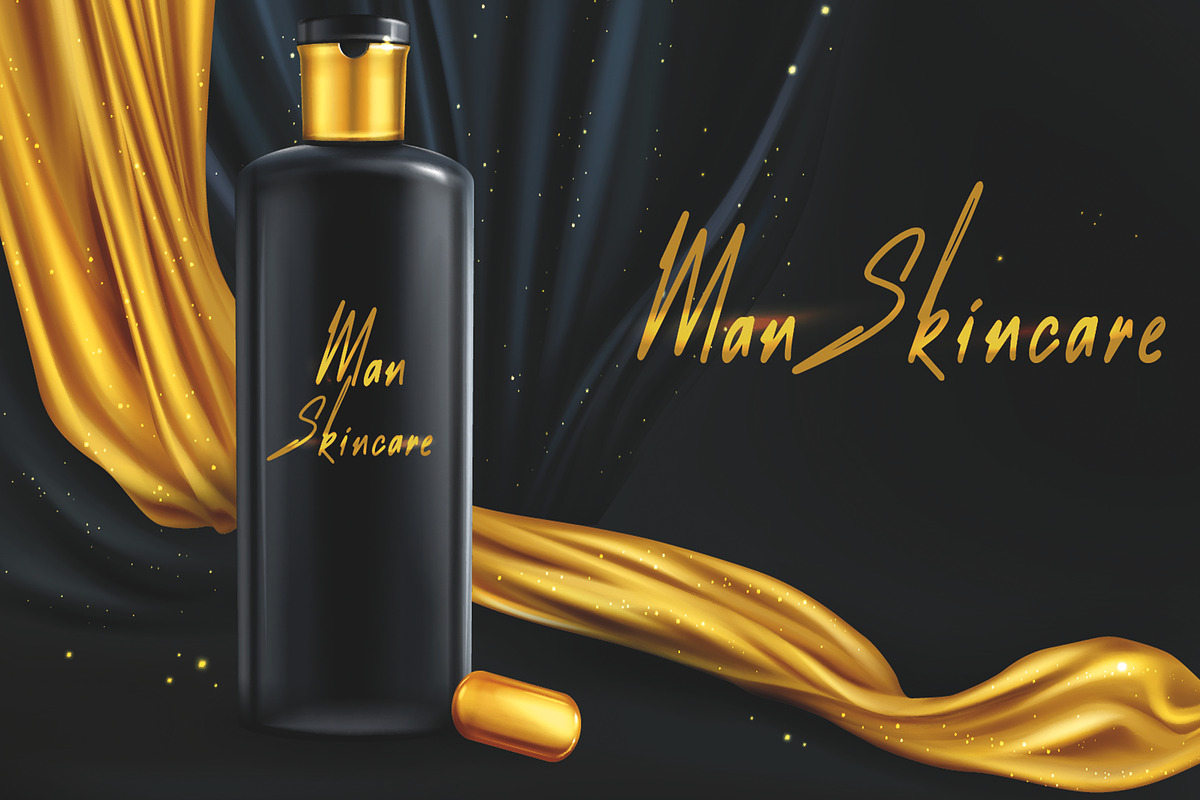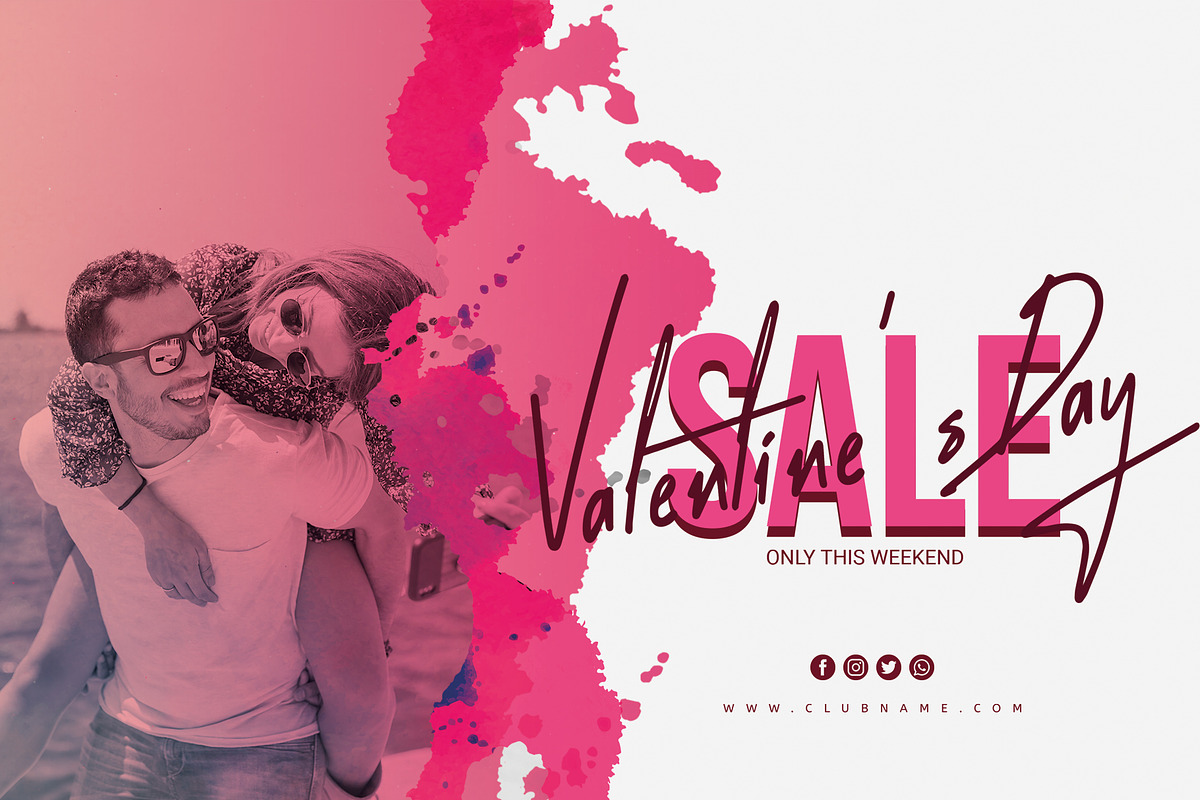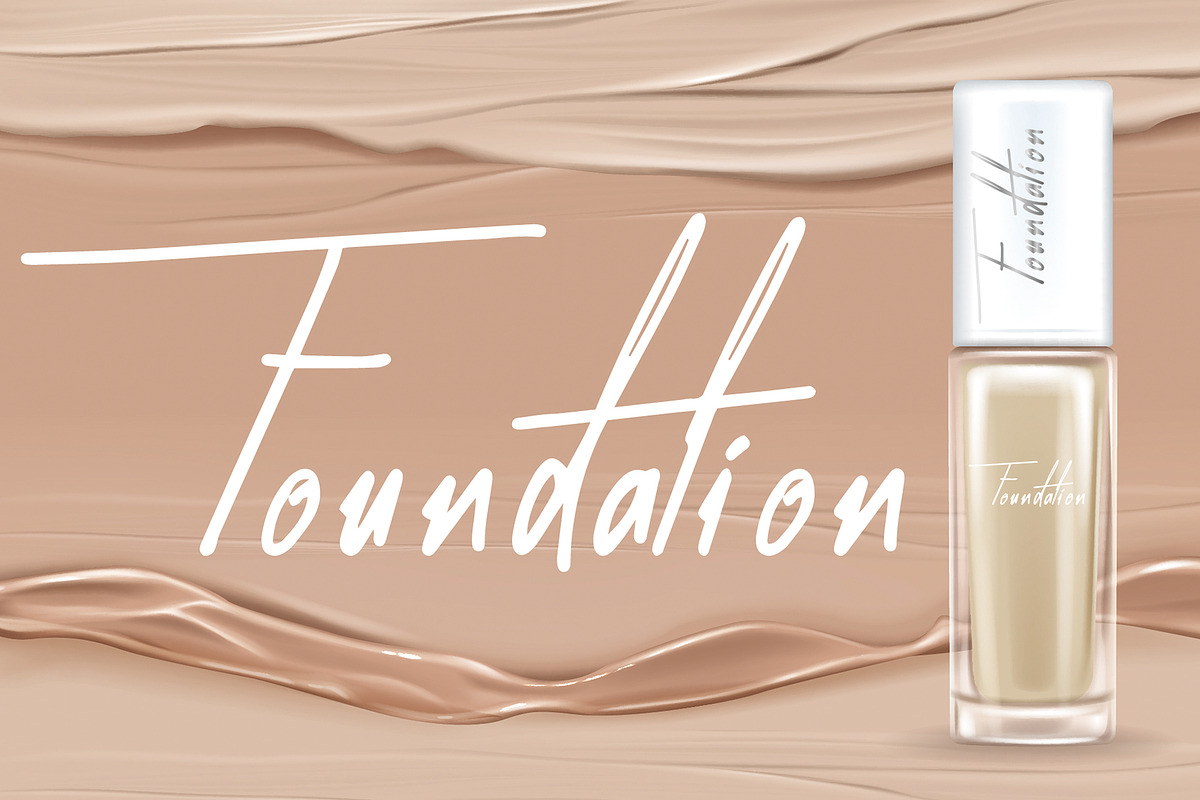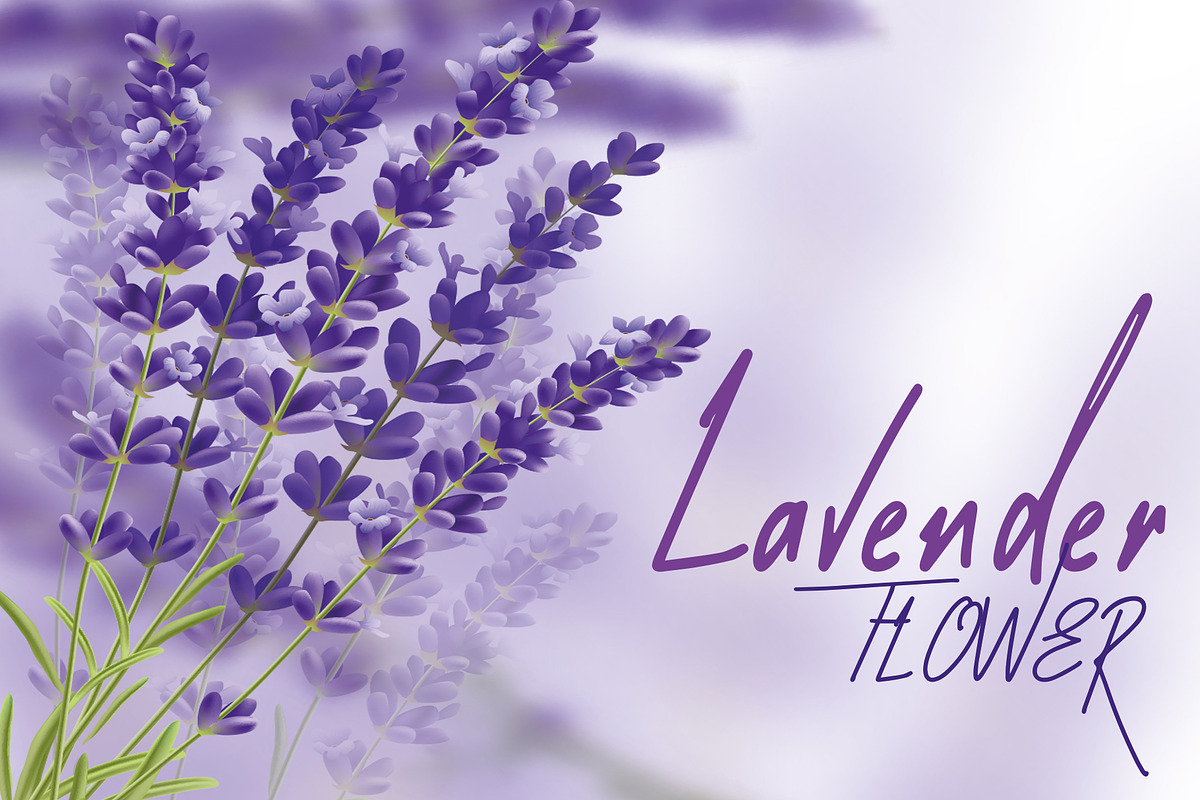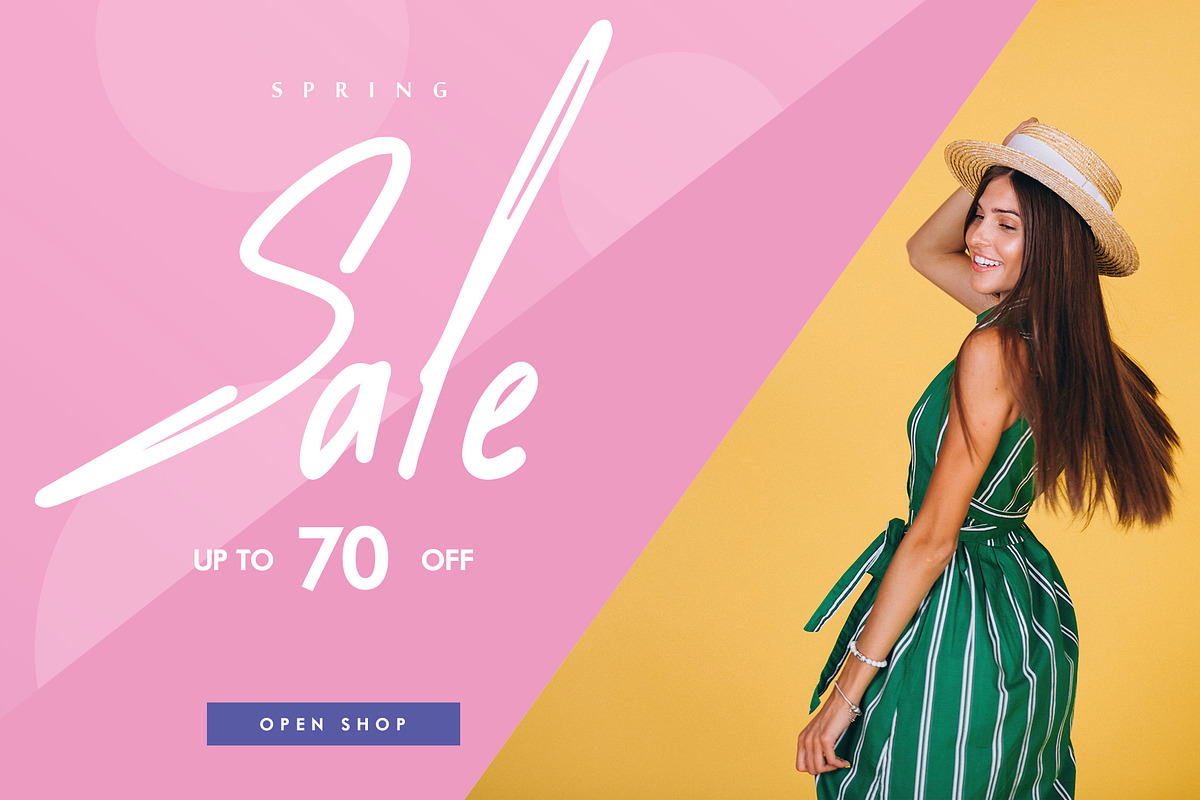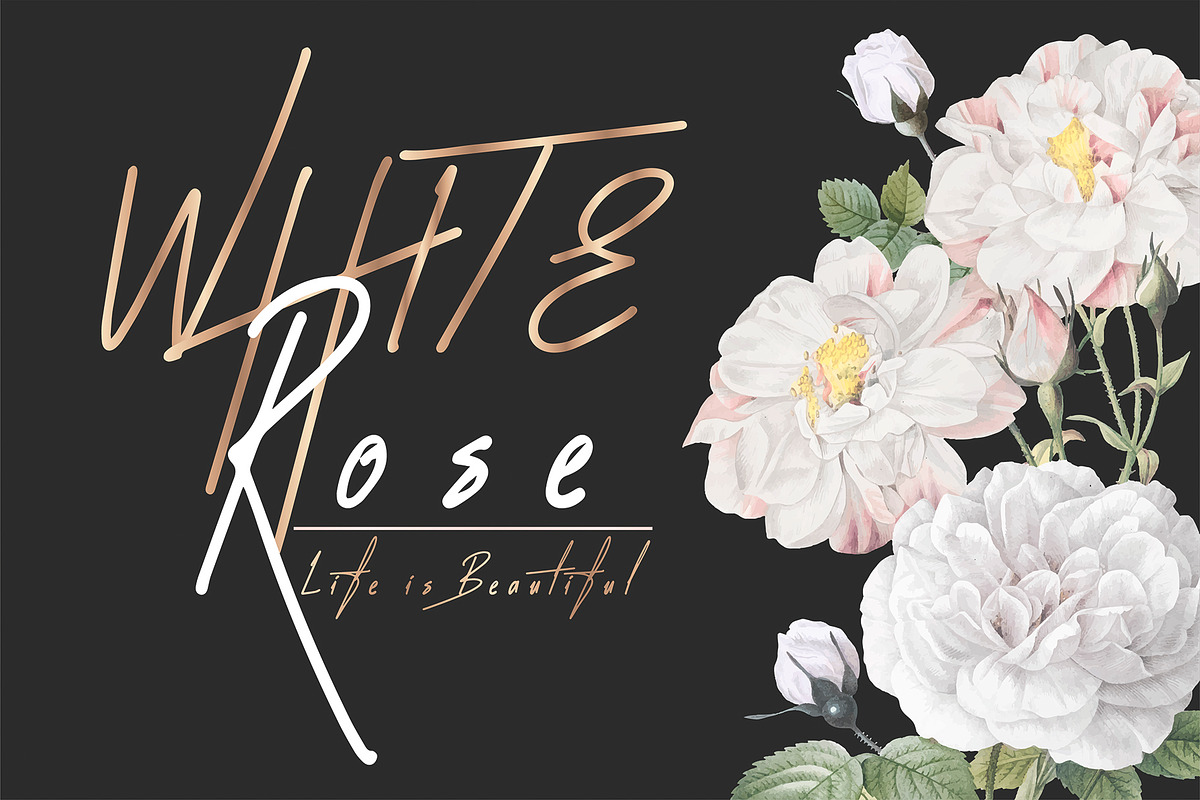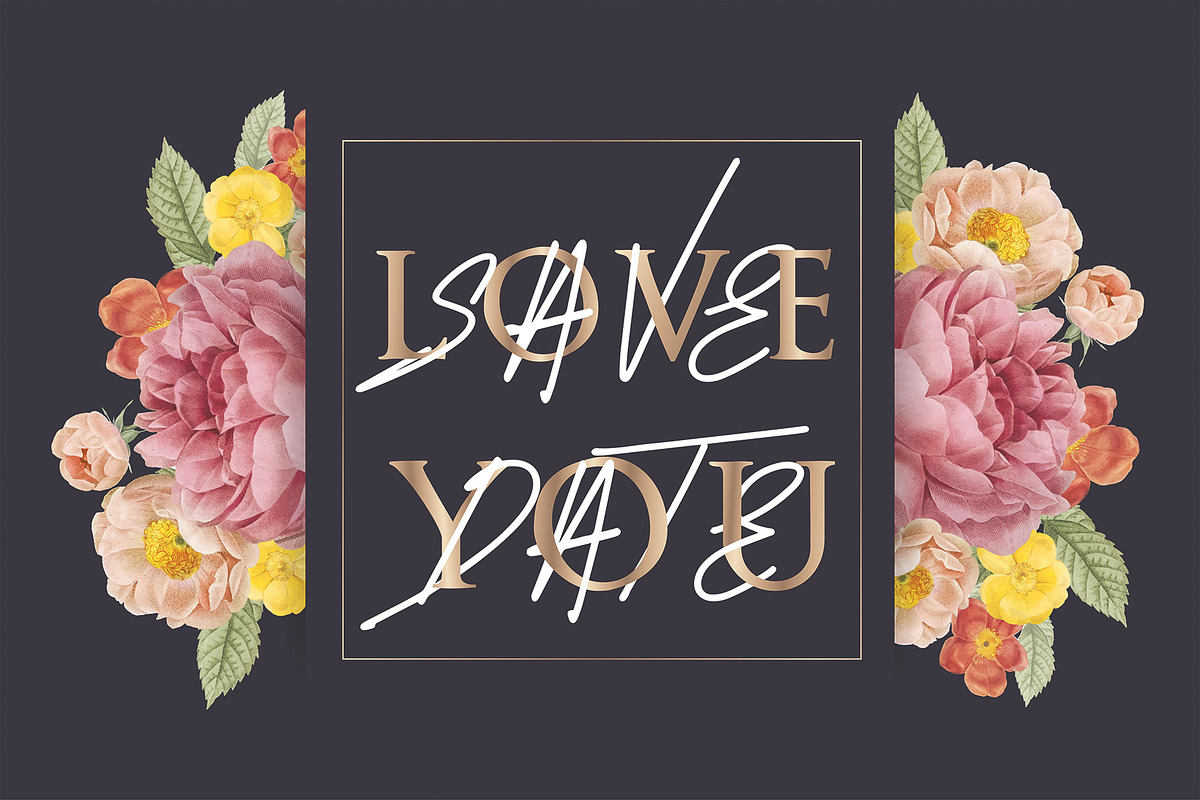
Nissibi Regular Signature Font
Meet this Font!Nissibi Regular Signature Font
‘Actual’ is a nice handwritten Typeface. It gives a complete authentic feel on your text.
You can get great inspiration by using all your graphic designs. It is a great font for small and large companies to use in their ads.
Why Nissibi Regular Signature Font is worth a look
Nissibi Regular Signature Font by essegraphic fits naturally into Branding, posters, packaging, typography.